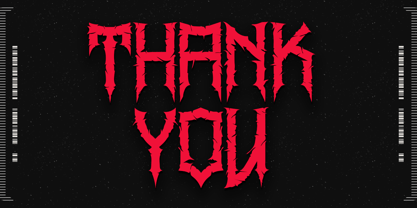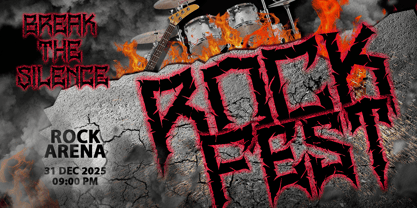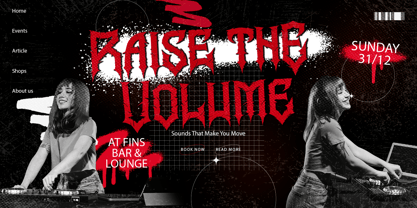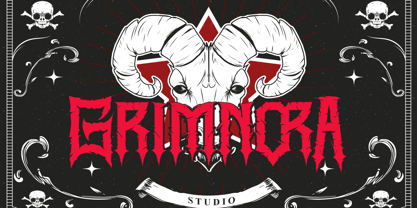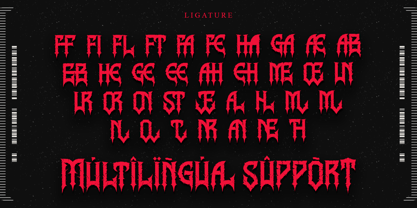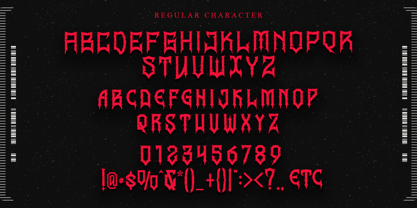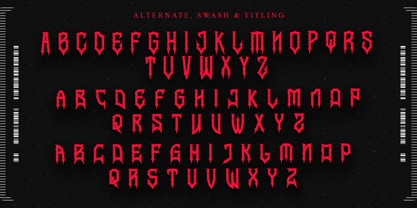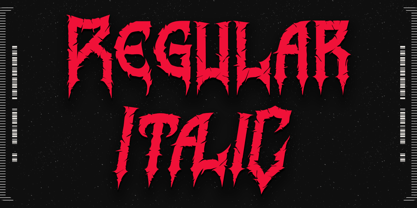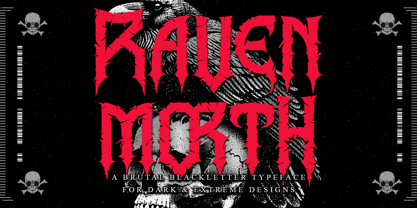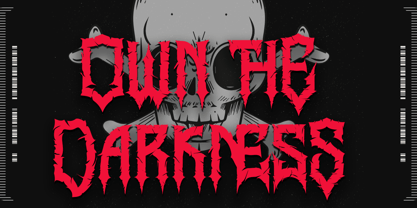
Ravenmorth
by Letterara
The Ravenmorth Font Family was designed by Thomas Aradea and published by Letterara. Ravenmorth contains 2 styles and family package options. More about this family
Step into the shadowed dominion of Ravenmorth, a font born from darkness, sharpened by chaos, and crowned with pure metal ferocity. Every curve and jagged stroke carries the essence of ancient power—untamed, ruthless, and unbound. Ravenmorth channels the raw spirit of black metal and gothic mystique, forging letterforms that feel carved from bone, steel, and night itself.   Engineered for album covers, occult branding, horror titles, merch prints, and any design that craves a brutal, commanding presence, Ravenmorth doesn’t simply decorate—it dominates. Its sinister details and fearless structure pull the viewer into a realm where shadows rule and the weak tremble.   Embrace the darkness. Claim the throne. Let Ravenmorth become the voice of your most relentless creations—a masterpiece crafted for those who design not for the faint of heart, but for the fearless.
Designers: Thomas Aradea
Foundry: Letterara
Ravenmorth